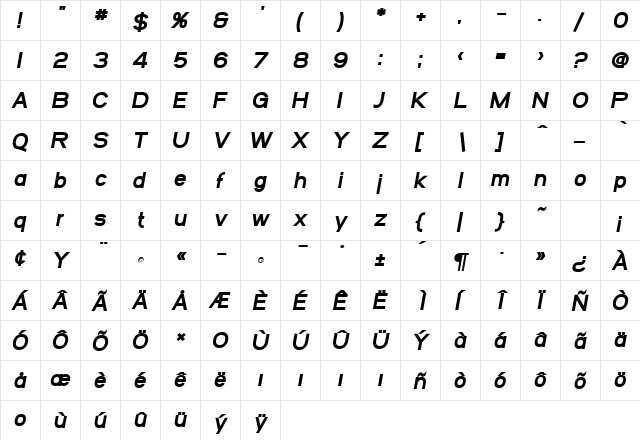
SF Arborcrest Heavy Oblique
Design Context for SF Arborcrest Heavy Typeface
SF Arborcrest Heavy takes a measured approach to typography — its balanced proportions and neutral character make it a reliable workhorse for both digital and print work. Its italic angle brings a sense of urgency and motion to the letterforms.
Pro Tip: Try SF Arborcrest Heavy for annotation and caption copy alongside an upright companion — the contrast in angle creates a dynamic but ordered typographic system.